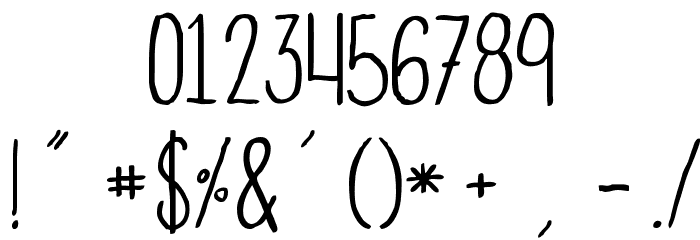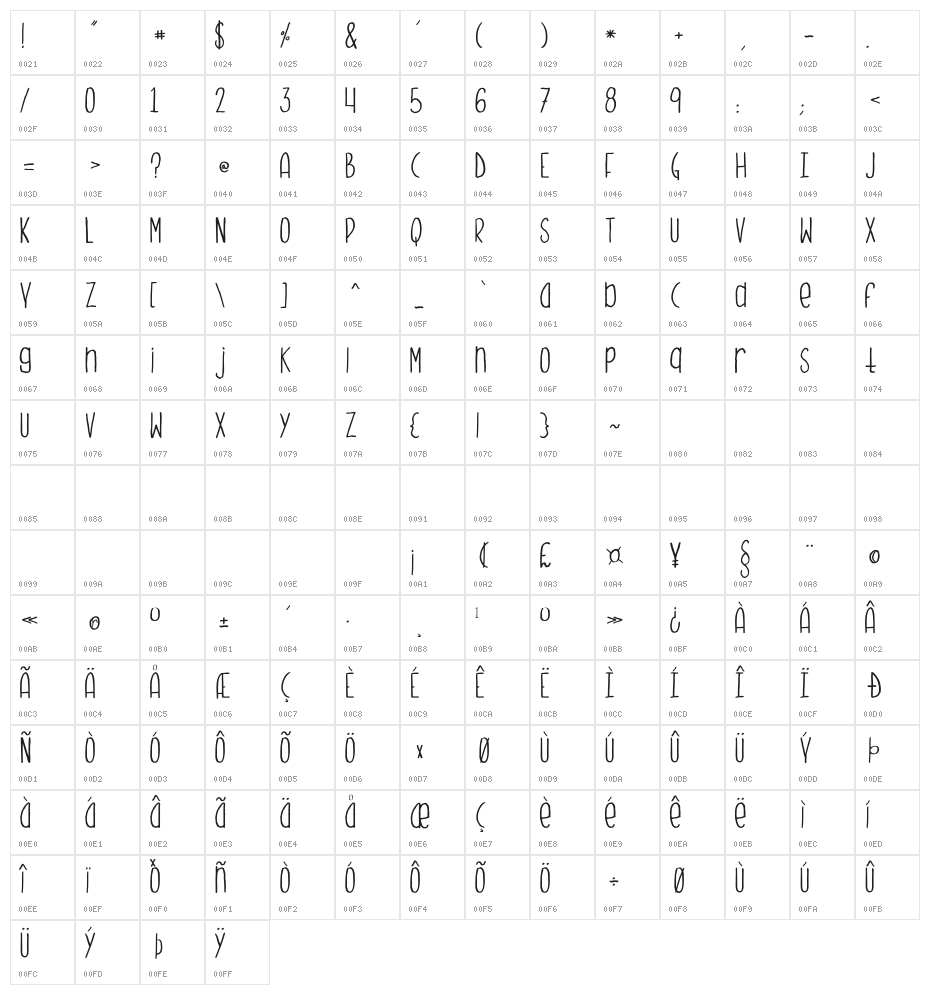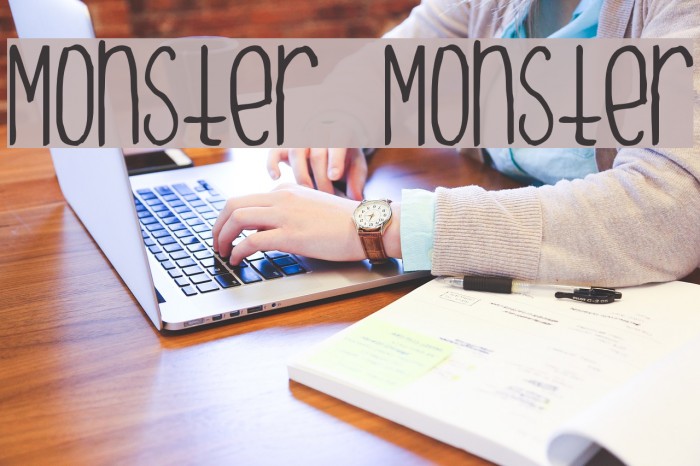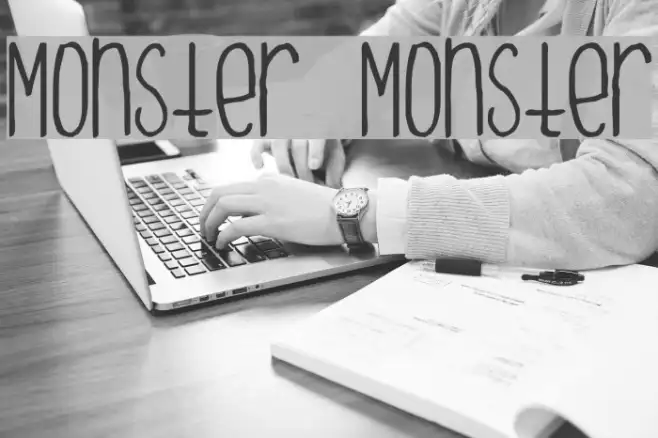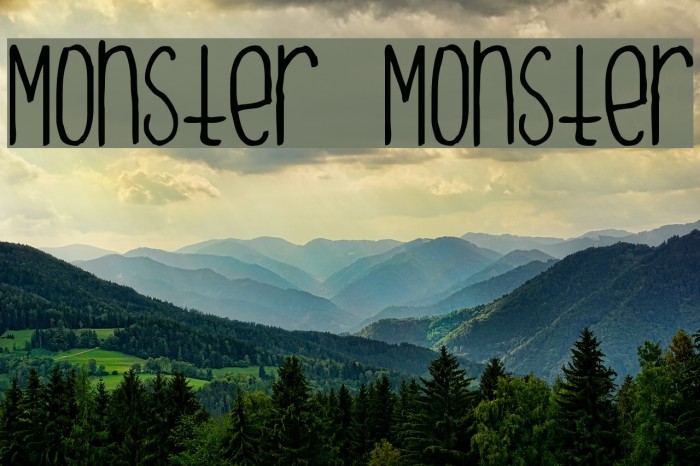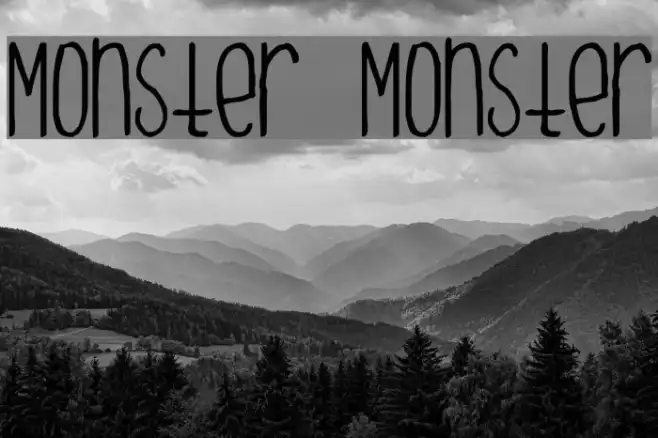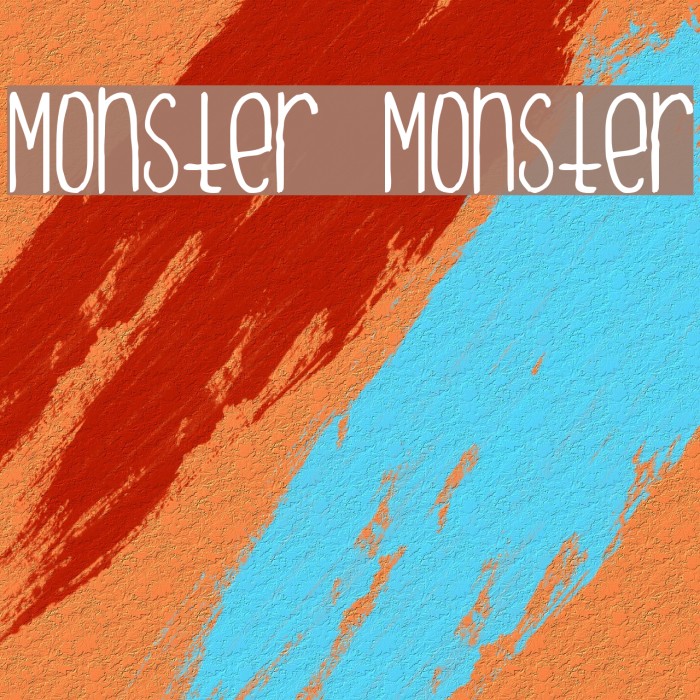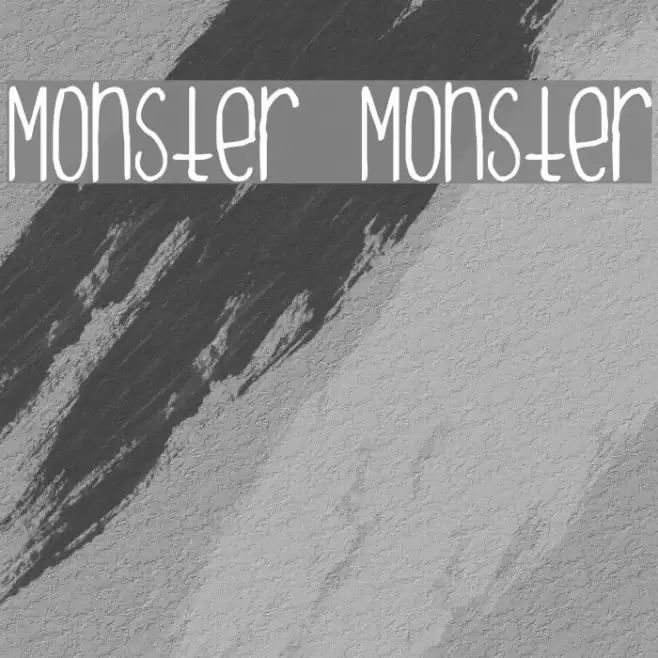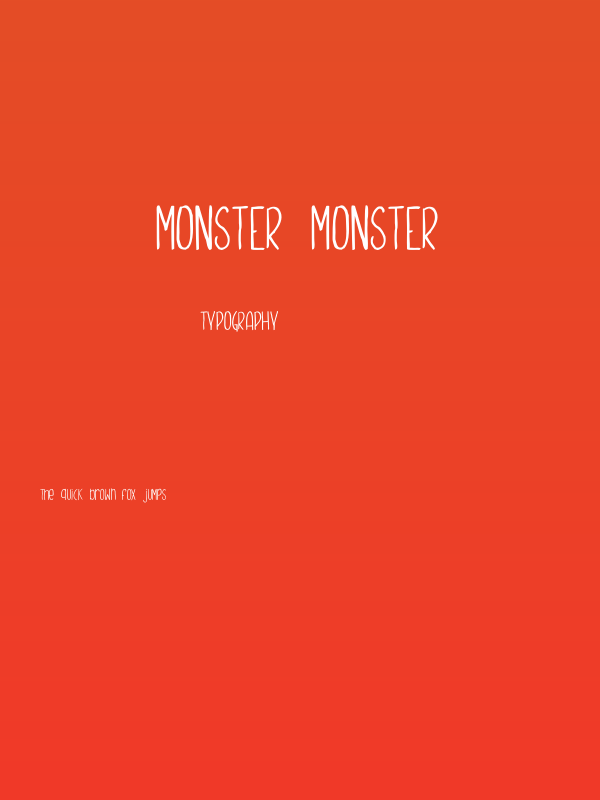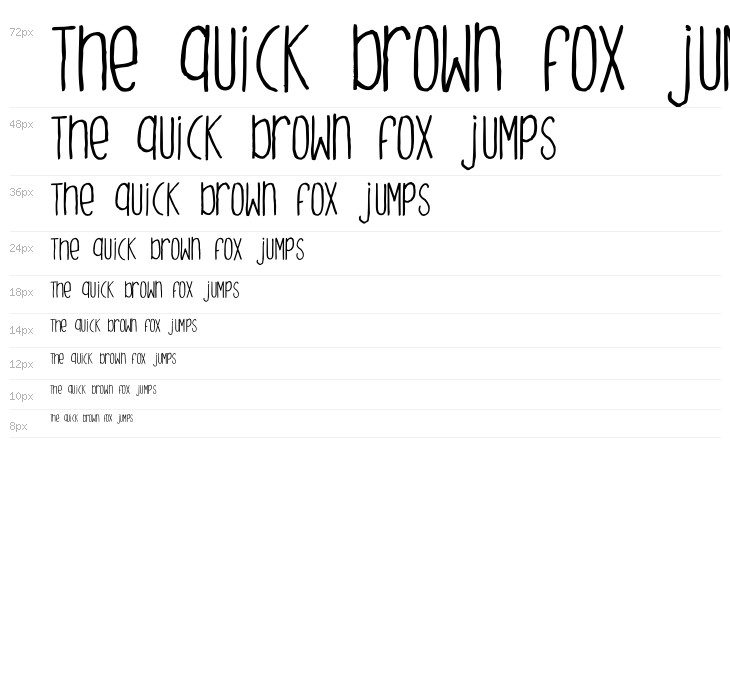
Monster Font
Monster Description
This font features a playful and quirky handwritten style, characterized by its tall and narrow letterforms. The strokes are uneven, giving it a casual and informal appearance. Each character has a unique, slightly irregular shape, adding to its charm and personality. The uppercase and lowercase letters maintain a consistent style, with a slight slant that enhances its dynamic look. The numbers and special characters are equally whimsical, fitting seamlessly with the overall design. This font exudes a friendly and approachable vibe, making it ideal for creative and fun projects.
| Overall Style | Casual and Playful |
| Proposed Projects | Ideal for children's books, greeting cards, playful branding, and casual invitations. |